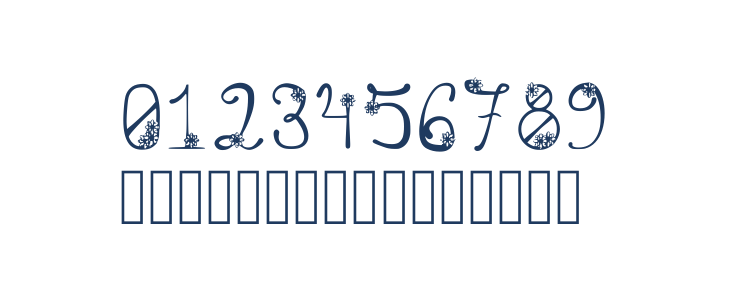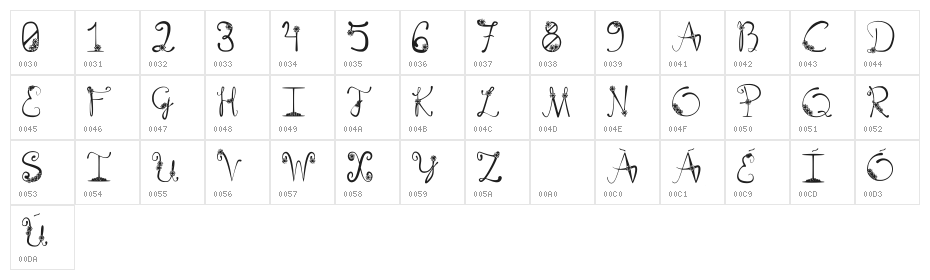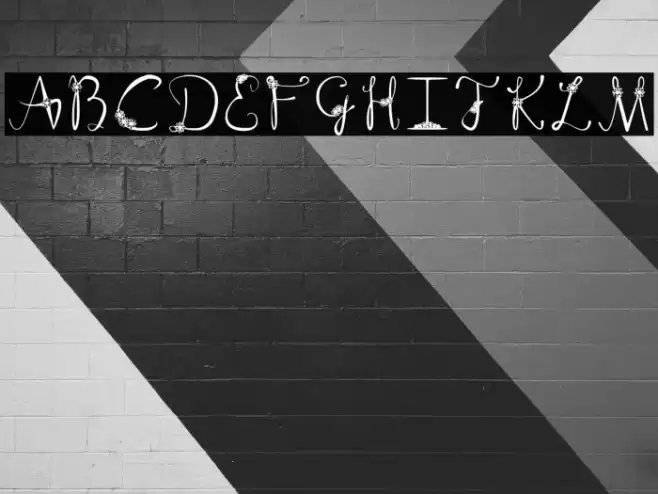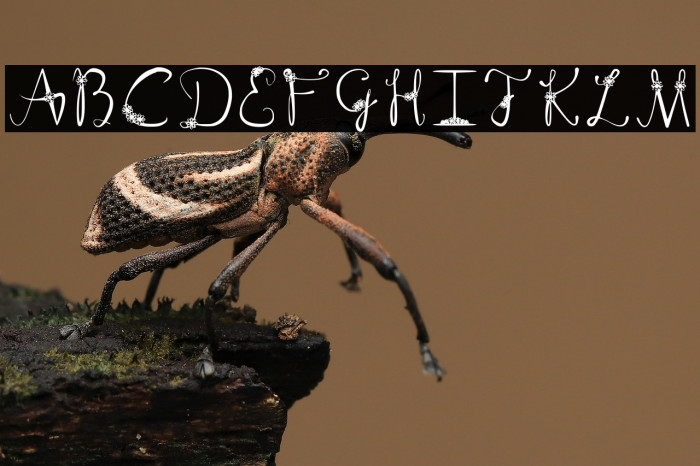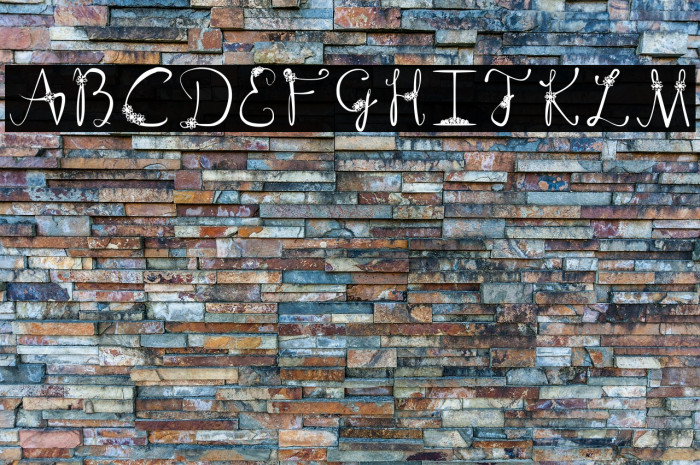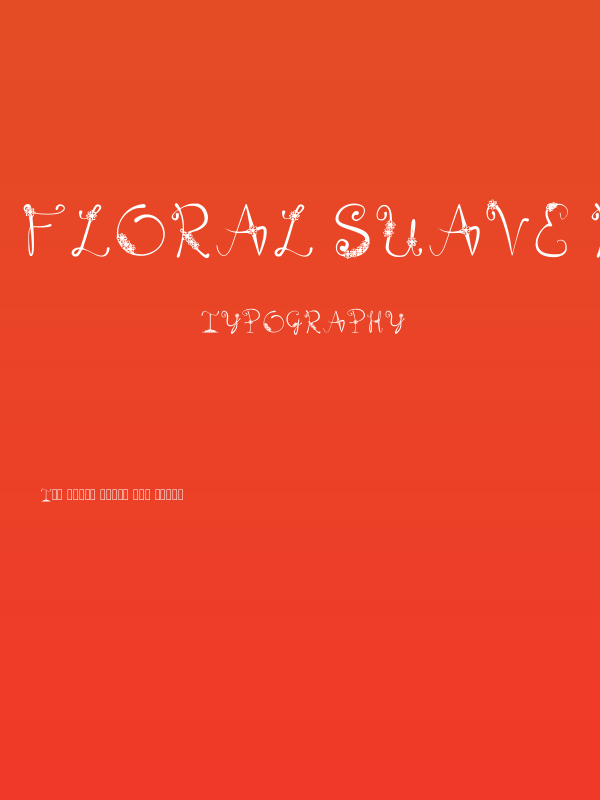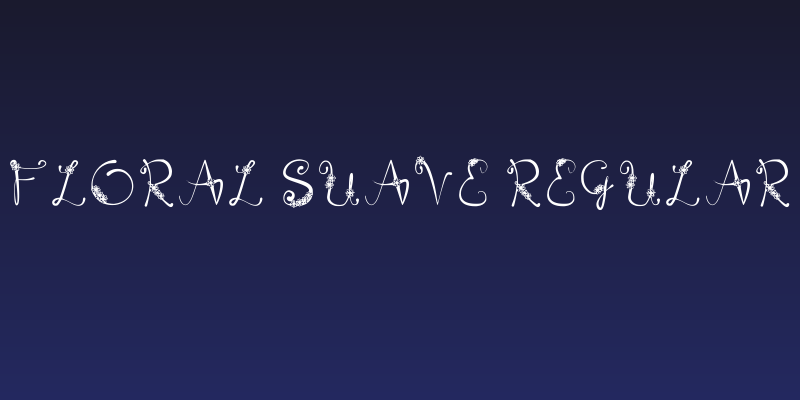
Floral Suave Regular Font
Floral Suave Regular Description
This font features an elegant and whimsical design with floral embellishments integrated into each character. The letters are adorned with delicate floral patterns, giving them a unique and artistic flair. The overall appearance is both decorative and sophisticated, making it ideal for creative projects that require a touch of elegance. The font maintains a consistent style across uppercase, lowercase, and numeral characters, with intricate details that enhance its visual appeal. The floral elements are seamlessly incorporated, ensuring readability while adding a decorative touch.